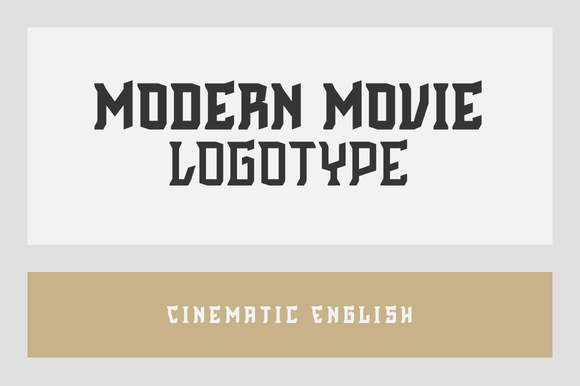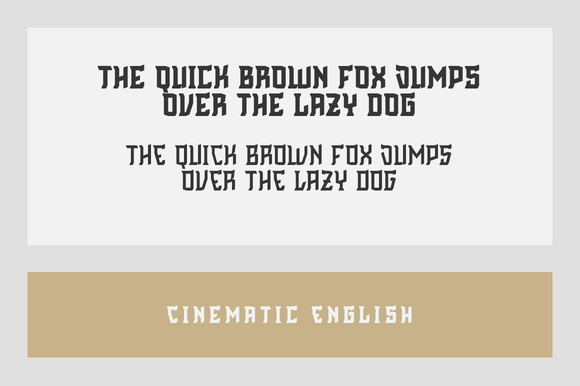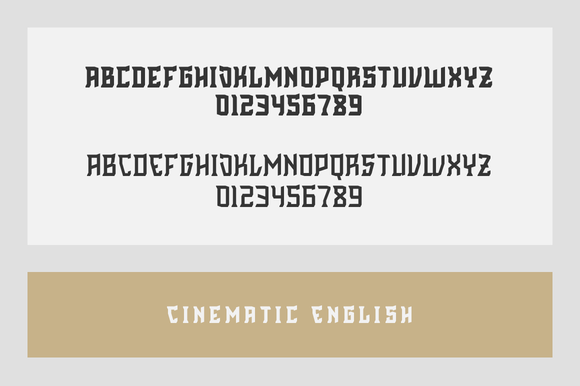
HomeBlackletter FontsCinematic English Font Blackletter Fonts Cinematic English Font FacebookXPinterestWhatsApp 1 of 4 Cinematic English Font - 1 Cinematic English Font - 2 Cinematic English Font - 3 Cinematic English Font - 4 About Cinematic English Font Cinematic English is a decorative font inspired by modern movie logotypes and classical blackletter typefaces DOWNLOAD NOW People also explored Moonlite Font Clobot Decorative Typeface Font The Calligraphy Font Peace Day Font Lisa Babe Font Cozybrush Font Sagantha Font Manolo Light Font Thanks for the Love Font 477 0 TagsCinematic English Font Previous articleAZ Wings FontNext articleBlack Edge Font LEAVE A REPLY Cancel reply Comment: Please enter your comment! Name:* Please enter your name here Email:* You have entered an incorrect email address! Please enter your email address here Website: Save my name, email, and website in this browser for the next time I comment. Personal Use Free Market Love Personal Use Free Read more about this font Proudly Personal Use Free Read more about this font Cuttering Personal Use Free Read more about this font My Shine Personal Use Free Read more about this font BLOG Modern Sans-Serif Fonts That Brands Love in 2025 In 2025, modern sans-serif fonts remain a top choice for brands looking to project clarity, professionalism, and... How to Install and Use Fonts on Windows, macOS, and Web Projects 5 Fonts That Will Dominate Design Trends in 2026 Best Fonts for YouTube Videos: Make Your Thumbnails Stand Out